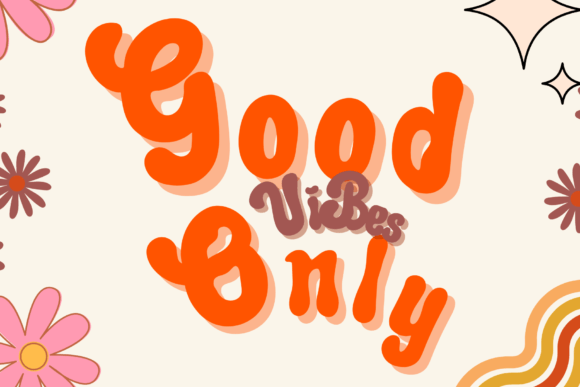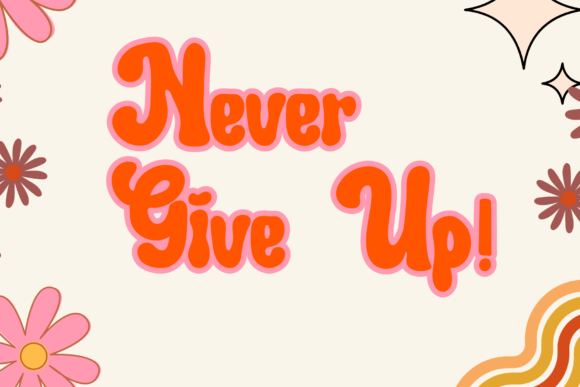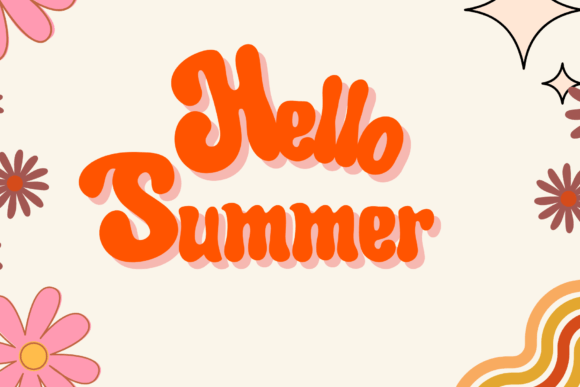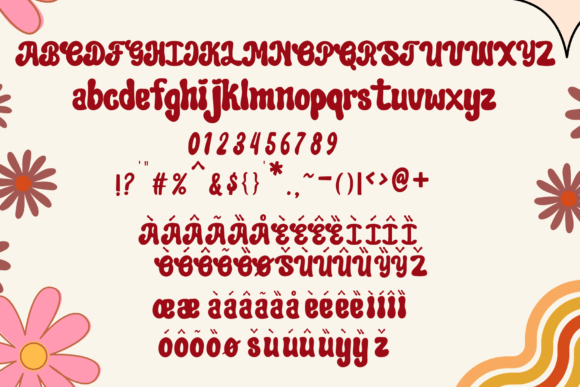
Groovy Love Font: The Ultimate Retro-Inspired Script for Your Designs
Are you a designer or crafter looking for a font that embodies the fun and playful spirit of the 1960s and 1970s? Look no further than the Groovy Love Font. This retro-inspired script display font is perfect for adding a touch of vintage cool to your designs, from album covers to invitations and posters.
What is Groovy Love Font?
Groovy Love Font is a carefully crafted script display font that captures the essence of the psychedelic era. Its flowing, cursive letters are reminiscent of the iconic typography of the 1960s and 1970s, evoking memories of colorful posters, vinyl records, and iconic fashion trends. The font’s unique blend of elegance and playfulness makes it an excellent choice for designers and crafters seeking to add a dash of nostalgia to their work.
Key Features of Groovy Love Font
- Retro-Inspired Design: Groovy Love Font boasts a distinctive retro aesthetic that’s perfect for creating designs that evoke the spirit of the 1960s and 1970s.
- Flowing Cursive Letters: The font’s flowing, cursive letters add a touch of elegance and sophistication to any design.
- Perfect for Playful Designs: Groovy Love Font is ideal for designs that require a fun and playful touch, such as album covers, invitations, posters, and more.
- High-Quality Typography: The font is meticulously crafted to ensure high-quality typography that’s clear and legible, even at large sizes.
Uses for Groovy Love Font
Groovy Love Font is an incredibly versatile font that can be used in a wide range of design projects. Here are some ideas to get you started:
- Album Covers: Add a touch of vintage cool to your music album covers with Groovy Love Font.
- Invitations: Create eye-catching invitations for parties, weddings, and other special events with this playful font.
- Posters: Use Groovy Love Font to create bold, eye-catching posters for concerts, festivals, and other events.
- Branding and Packaging: Add a dash of nostalgia to your brand’s packaging and marketing materials with this unique font.
- Crafting and Scrapbooking: Groovy Love Font is perfect for crafters and scrapbookers looking to add a touch of retro flair to their projects.
Tips for Using Groovy Love Font